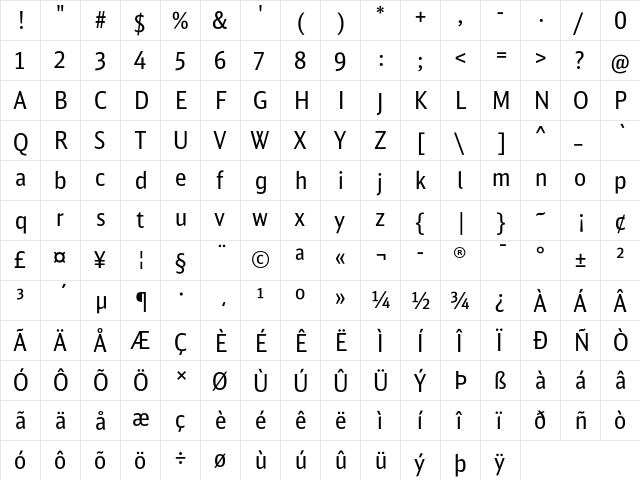
DB Sans Cond Altern Regular
Design Context for DB Sans Cond Altern Typeface
DB Sans Cond Altern is a composed and adaptable typeface that performs quietly and consistently across a wide range of design contexts. Its narrow stance lets it pack a punch even in space-constrained designs.